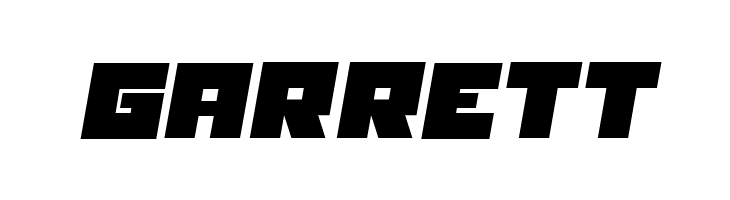
A bold, italicized font with angular, dynamic characters.
A bold, geometric font with a strong, angular design.
A bold, angular font with sharp edges and a dynamic, modern style.
A bold, geometric font with a modern and impactful design.
A bold, 3D geometric font with outlined characters.
A bold, 3D italic font with a futuristic and outlined design.
A bold, geometric font with outlined characters for a striking effect.
Bold, italicized font with a modern, three-dimensional look.
A bold, futuristic font with a unique striped pattern and geometric design.
A bold, chrome-like italic font with a futuristic and layered design.
A bold, geometric, and condensed font ideal for impactful headlines.
A bold, condensed, and italicized font with a modern, futuristic style.
A bold, geometric font with wide, blocky characters.
A bold, expanded, and italicized font with a modern, dynamic style.
A bold, futuristic font with a gradient effect created by horizontal lines.
A modern, italicized font with a gradient effect and striped pattern.
A bold, geometric font with a halftone effect, ideal for modern and dynamic designs.
A bold, italicized font with a futuristic halftone effect.
A bold, italic font with a dynamic, futuristic style.
A bold, futuristic font with geometric shapes and a stencil-like design.
A bold, italic, futuristic font with sharp angles and a dynamic style.
A bold, futuristic font with geometric and dynamic slanted characters.
A bold, semi-italic font with a dynamic and modern style.
A bold, italic font with a modern and dynamic style, ideal for headlines.
A bold, italic, and modern font with high contrast and dynamic style.
A bold, split-effect decorative font ideal for striking headlines.
A bold, modern font with distinctive split characters and high contrast.
A bold, edgy font with jagged, brush-like strokes and a graffiti-inspired style.
A playful, hand-drawn font with bold, cartoon-like characters and decorative elements.
A bold, playful font with a hand-crafted, irregular design.
A bold, dripping font with a horror-themed aesthetic.
A bold, dripping font with a dramatic and intense appearance.
A bold, expressive brushstroke font with dynamic and textured characters.